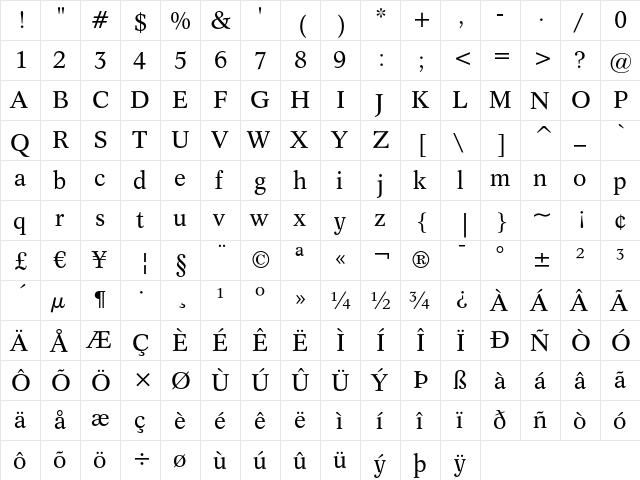
Dutch 809 Regular
Design Context for Dutch 809 Typeface
Dutch 809 takes a measured approach to typography — its balanced proportions and neutral character make it a reliable workhorse for both digital and print work.